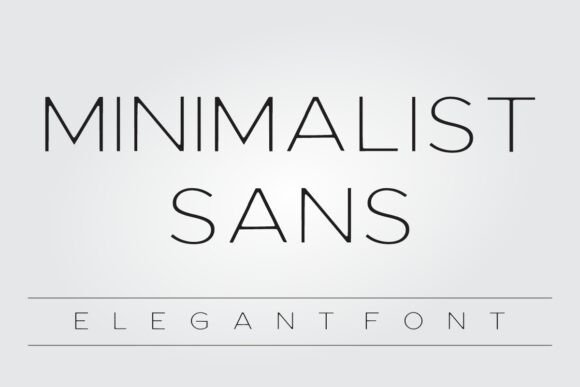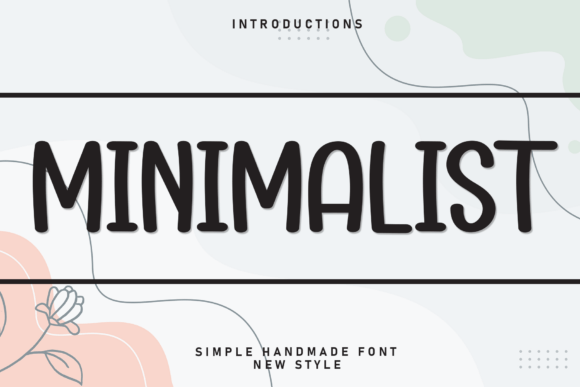
11 Premium Minimalist Fonts for Eye-Catching Designs in Canva
11 Premium Minimalist Fonts for Canva Designs (2026)
Discover 11 premium minimalist fonts perfect for modern, eye-catching Canva designs. Enhance your branding, social posts, and Amazon listings with timeless sans-serif options—plus, find trusted sources like Creative Fabrica for licensing and quick integration into your projects.
Minimalist fonts have become a staple in contemporary graphic design, especially for creators who value clarity, sophistication, and versatility. If you use Canva for projects ranging from business branding to Instagram graphics or even Etsy product images, the right minimalist font can dramatically elevate your visuals. Our curated list of 11 premium minimalist fonts for Canva, sourced from Creative Fabrica, ensures you’ll find a solution suited to every aesthetic—without sacrificing professionalism or legal peace of mind. For a broader selection and licensing insight, check out 10 Most Popular Handwritten Logo Fonts for 2026.
Minimalist Font by cavalera creative Sans-serif Clean geometric lines Get Font
Minimalist Font by Black line Sans-serif Elegant minimalism Get Font
Minimalist Font by LidvanType Sans-serif Subtle curves and edge Get Font
Minimalist Font by ONE DESIGN Sans-serif Versatile all-purpose use Get Font
Minimalist Font by Roronoa zoro.S.P.D Sans-serif Modern rounded look Get Font
Minimalist Font by cavalera creative
Minimalist Font by cavalera creative is a refined sans-serif option with crisp geometric lines and balanced spacing. It excels in logo work, brand identities, and streamlined web layouts. The uncluttered letterforms ensure readability and timeless appeal, making it a solid choice for digital and print projects. Its simplicity draws attention to your message while enhancing any minimalist aesthetic.
Minimalist Font by Black line
This font from Black line is designed for sleek branding and social posts, offering an effortless blend of elegance and restraint. Its even proportions and consistent weights make layouts look balanced and upscale without overwhelming other elements. Ideal for online shop banners or editorial graphics in Canva, it proves minimalism can have personality. The font’s versatility extends to business cards and product listings.
Minimalist Font by LidvanType
LidvanType’s Minimalist Font introduces gentle curves and understated detail, creating a sense of warmth within its clean lines. It’s particularly suitable for luxury product labels, personal portfolios, or calming minimalist quotes on social platforms. The subtle design touches make it easy to pair with visuals, ensuring the text adds polish without distraction. This font is a go-to for Canva creators striving for approachable professionalism.
Minimalist Font by ONE DESIGN
Minimalist Font by ONE DESIGN features a highly adaptable sans-serif style, ideal for everything from startup branding kits to polished resumes. The unpretentious shapes encourage clarity and work effortlessly with bold headers, subheadings, and even small-caps body text. Its all-purpose usability lets designers experiment confidently with different Canva templates. Use this pick when a reliable, modern minimal font is needed for tight deadlines or broad applications.
Minimalist Font by Roronoa zoro.S.P.D
Roronoa zoro.S.P.D’s Minimalist Font stands out with a contemporary rounded look that brings softness and friendliness to headers and quotes. It lends itself to both digital branding and chic packaging designs. The smooth curves provide visual comfort—a perfect match for wellness brands or casual service businesses. Let this font add subtle character to your next Canva project while keeping the layout tidy and professional.
Minimalist Font by Bintang Studio
Bintang Studio delivers a minimal font that’s perfectly balanced for presentations or Instagram carousels. This font emphasizes straight lines with slight spacing, keeping your message neat and easily digestible. Great for product mockups, online ads, or website headers where clarity is crucial. It’s a reliable staple in any Canva minimal fonts toolbox.
Minimalist Font by Goodrichees
This font by Goodrichees offers a subtle, clean sans-serif option that supports contemporary branding strategies and social media graphics. Its neutral weights ensure easy pairing with vibrant color schemes or minimalist backgrounds. Use it for tagline overlays, clean website banners, and understated signature lines. The font is a subtle powerhouse when you’re looking for “less is more.”
In summary, finding the right premium minimalist fonts for Canva can transform your projects with clarity and elegance. Creative Fabrica’s diverse collection simplifies both selection and licensing—empowering you to create eye-catching, brand-consistent visuals with confidence and ease.